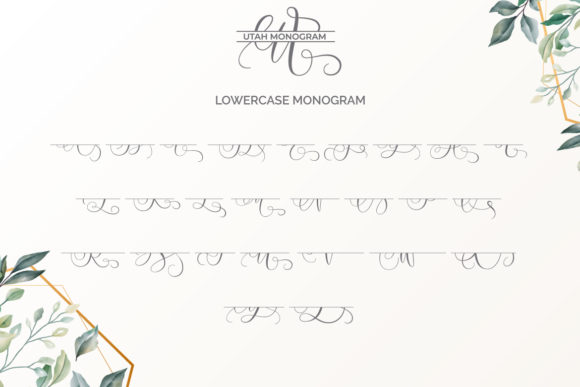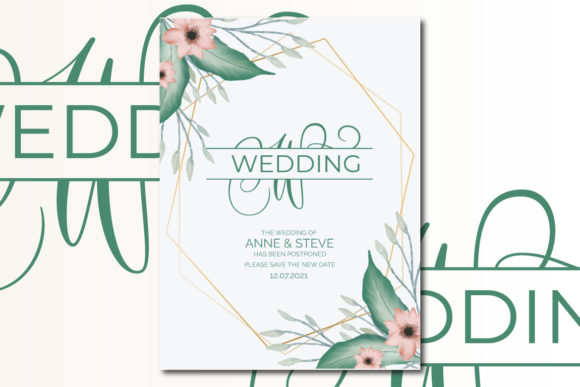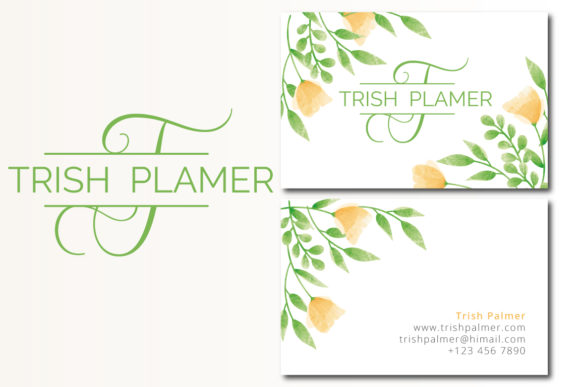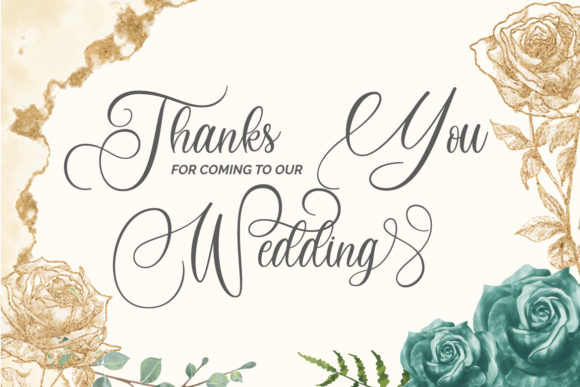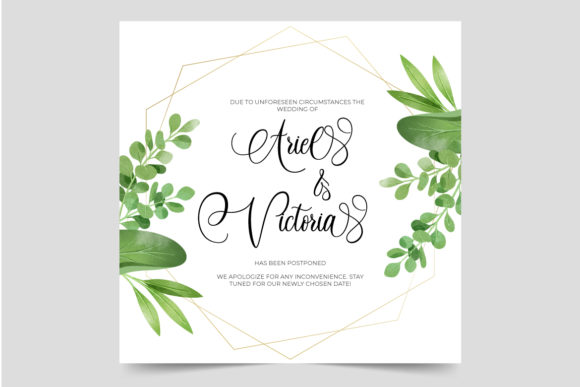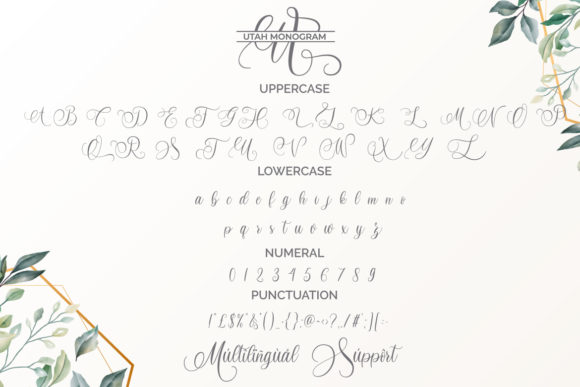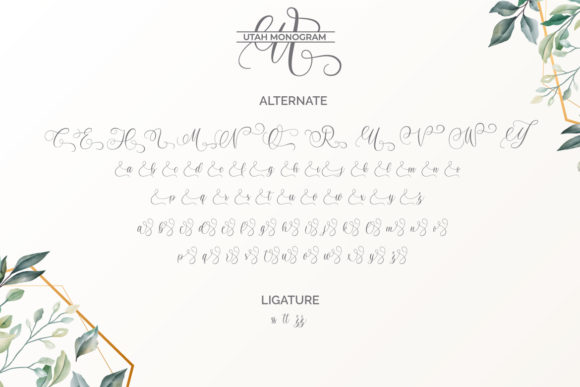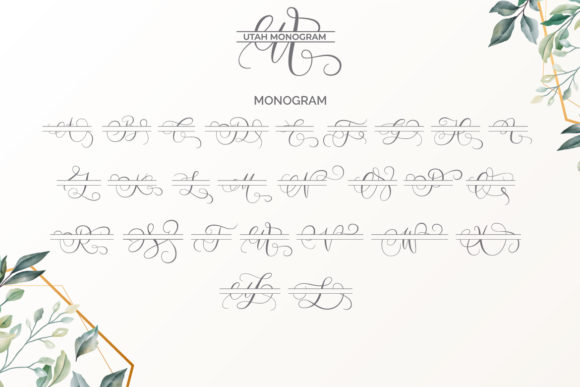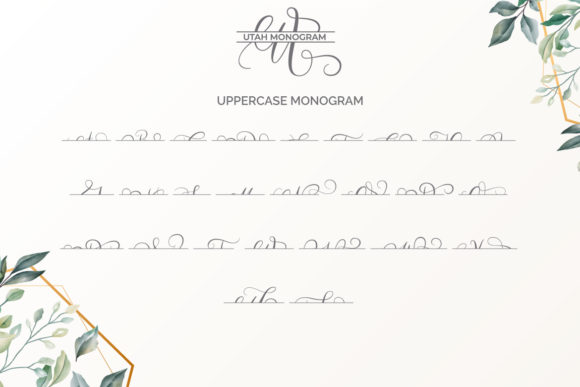
Utah Monogram Font
About Utah Monogram Font
Utah Monogram is a gorgeous script font. This stunning typeface is a stylish homage to classic calligraphy. Fall in love with its authentic feel and use it to create gorgeous wedding invitations, beautiful stationary art, eye-catching social media posts, and cute greeting cards.